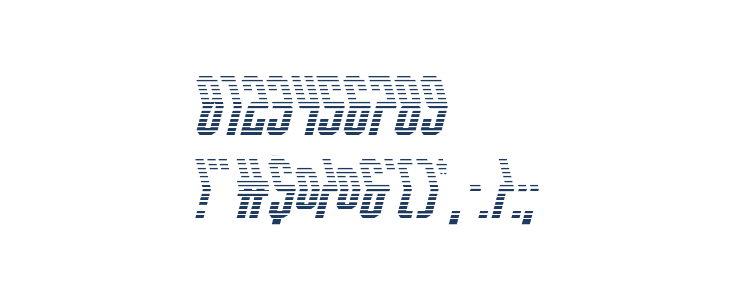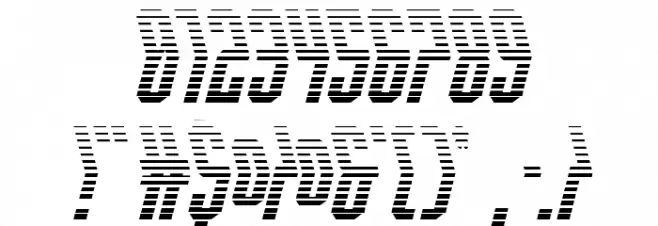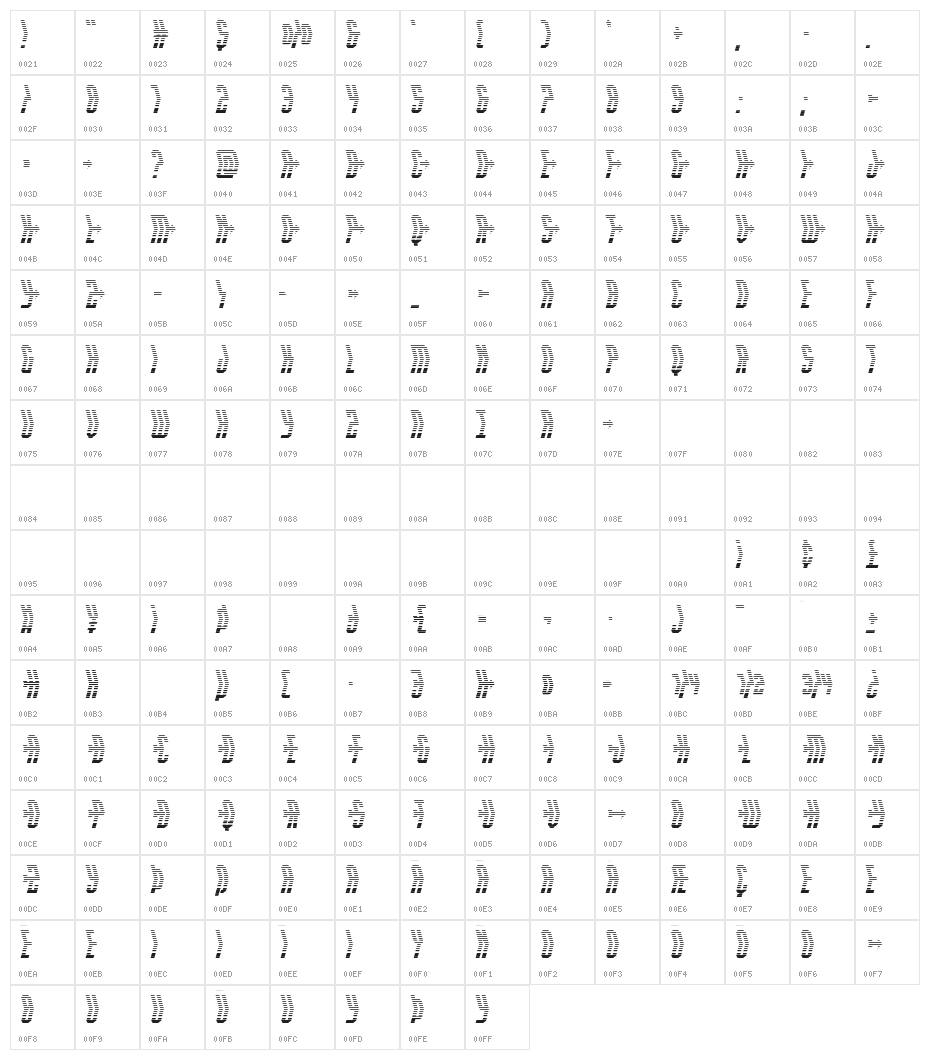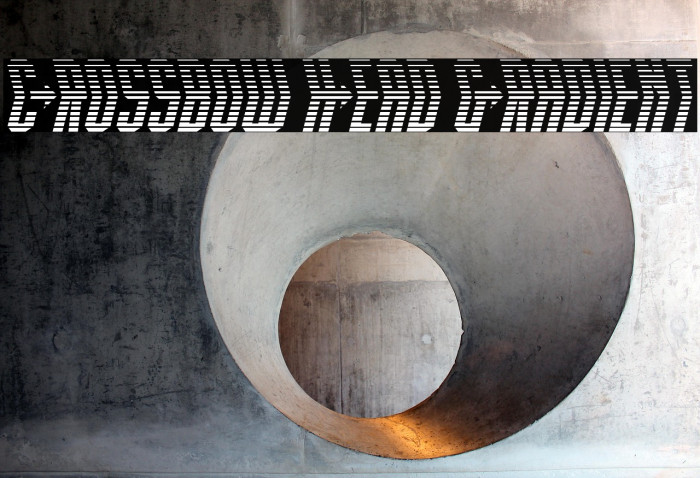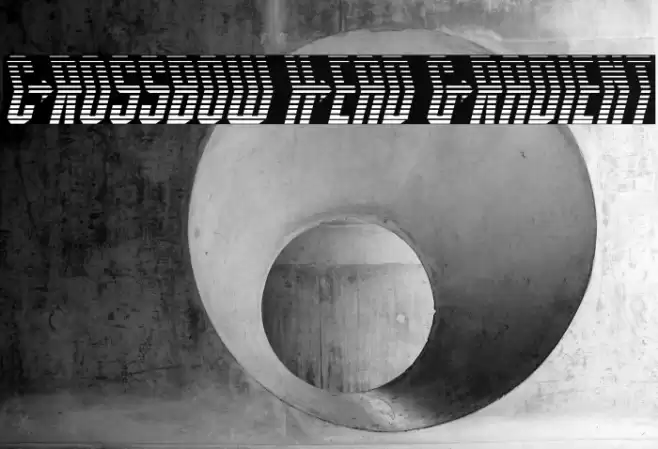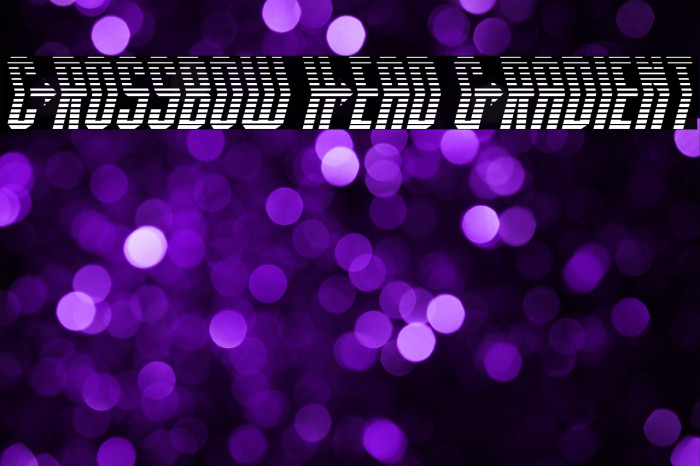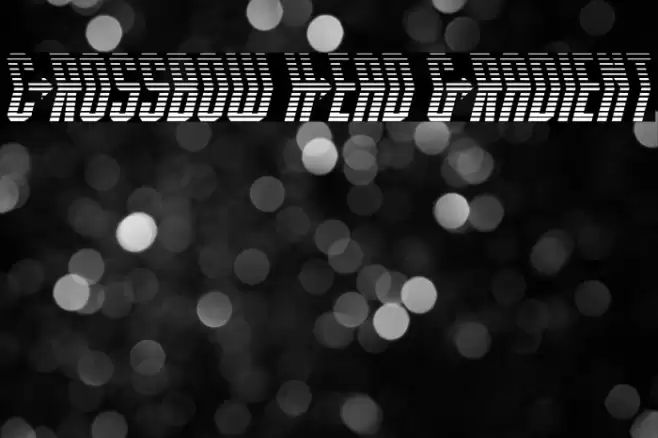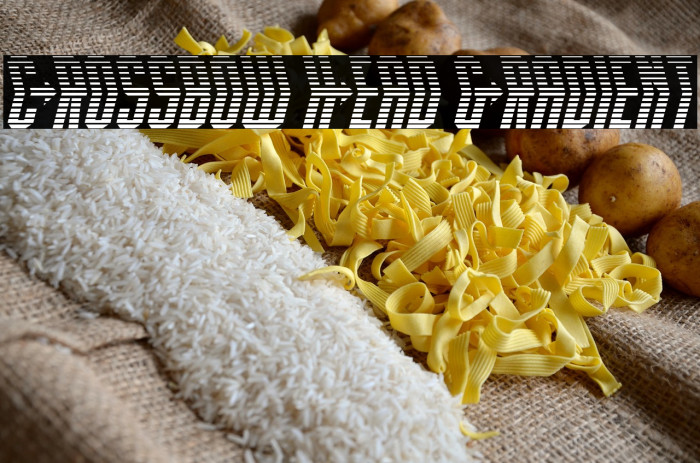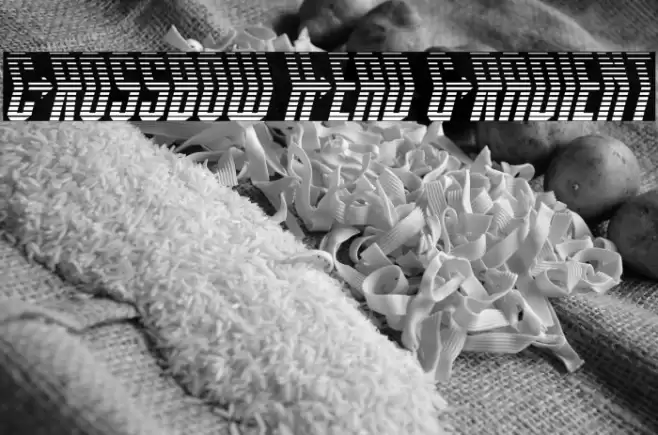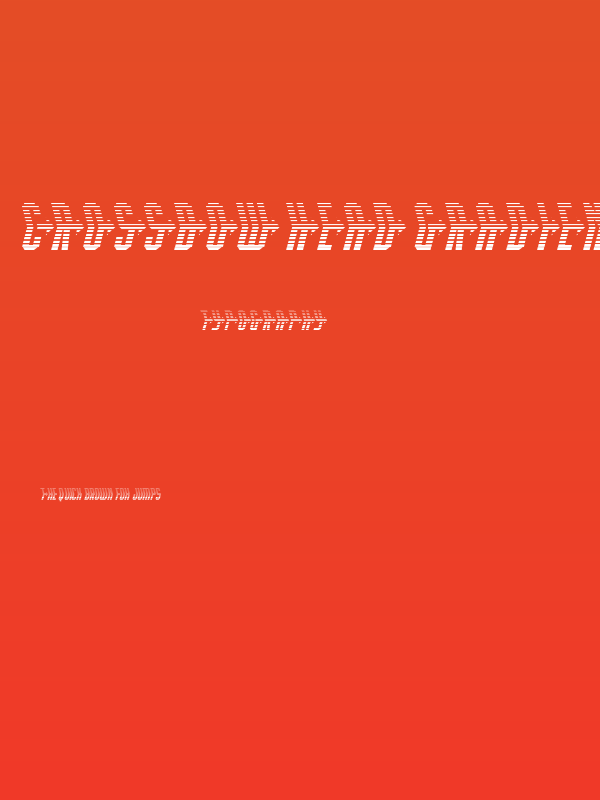
Crossbow Head Gradient Font
Crossbow Head Gradient Description
This font features a bold, dynamic design with a gradient effect that gives the impression of movement and speed. The characters are constructed with horizontal lines that create a sense of depth and dimension. The uppercase and lowercase letters maintain a consistent style, with sharp angles and a futuristic aesthetic. The numbers and special characters are equally bold, making them stand out. This font is ideal for projects that require a modern and edgy look, such as technology branding, sports team logos, or dynamic poster designs.
| Proposed Projects | Ideal for technology branding, sports logos, dynamic posters, and modern advertisements. |